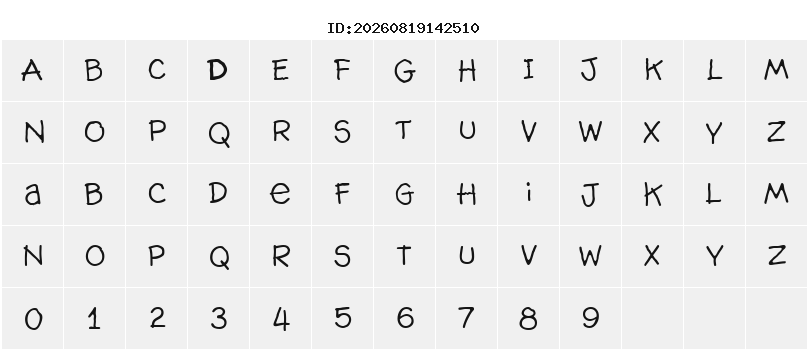
Simple Jane Preview
About Simple Jane.ttf
Simple Jane.ttf is a modern, elegant sans-serif font designed for ultimate readability and visual harmony. Perfect for branding, headlines, web design, and print materials.